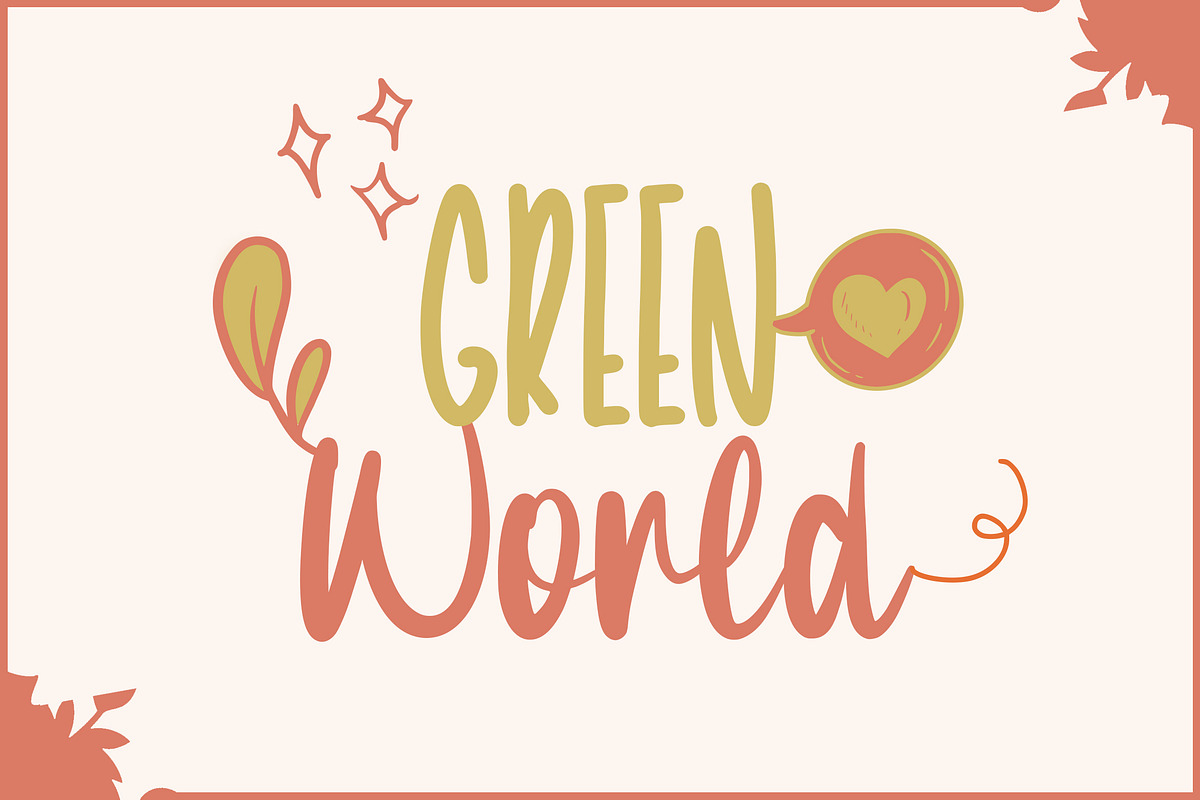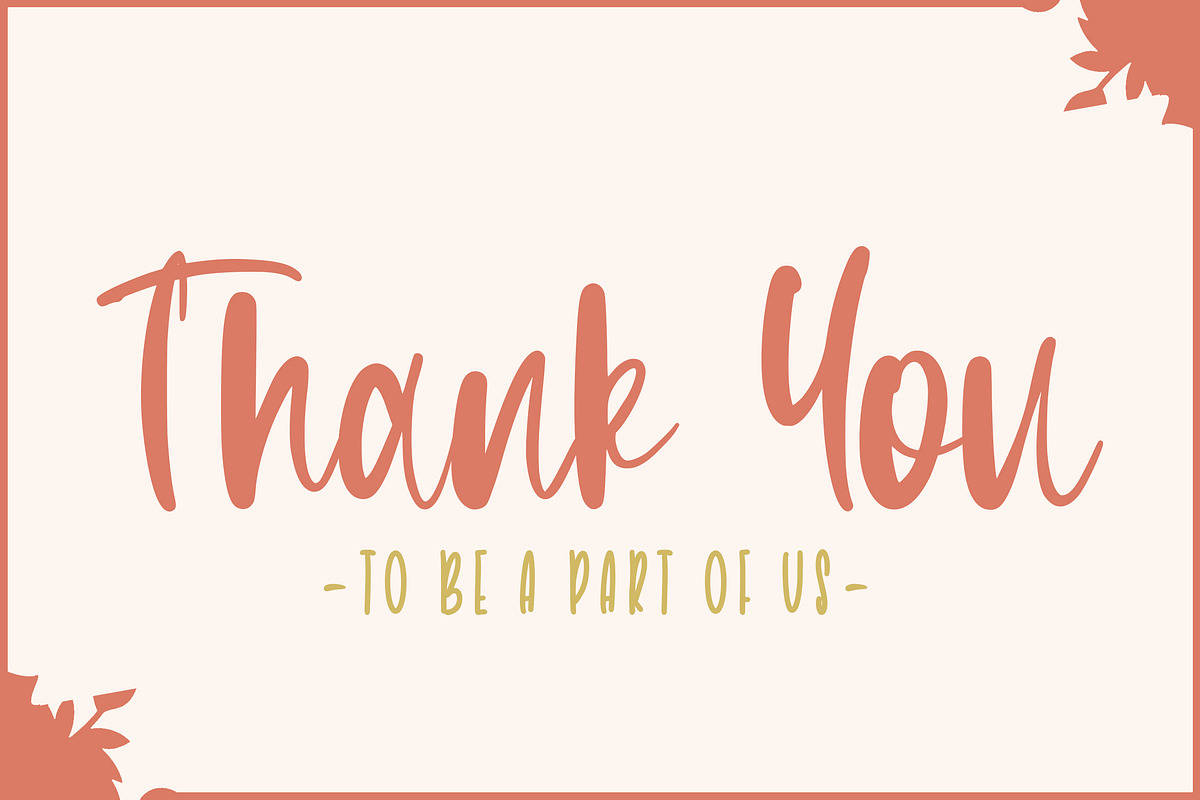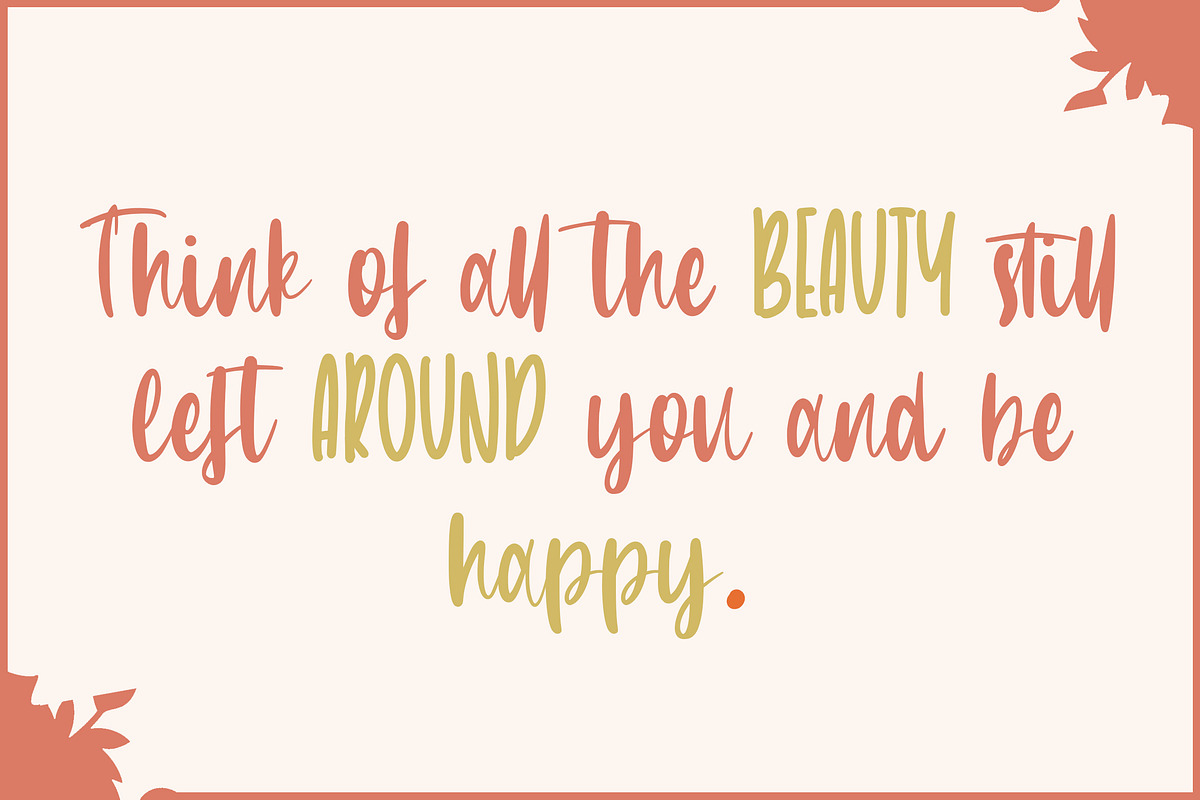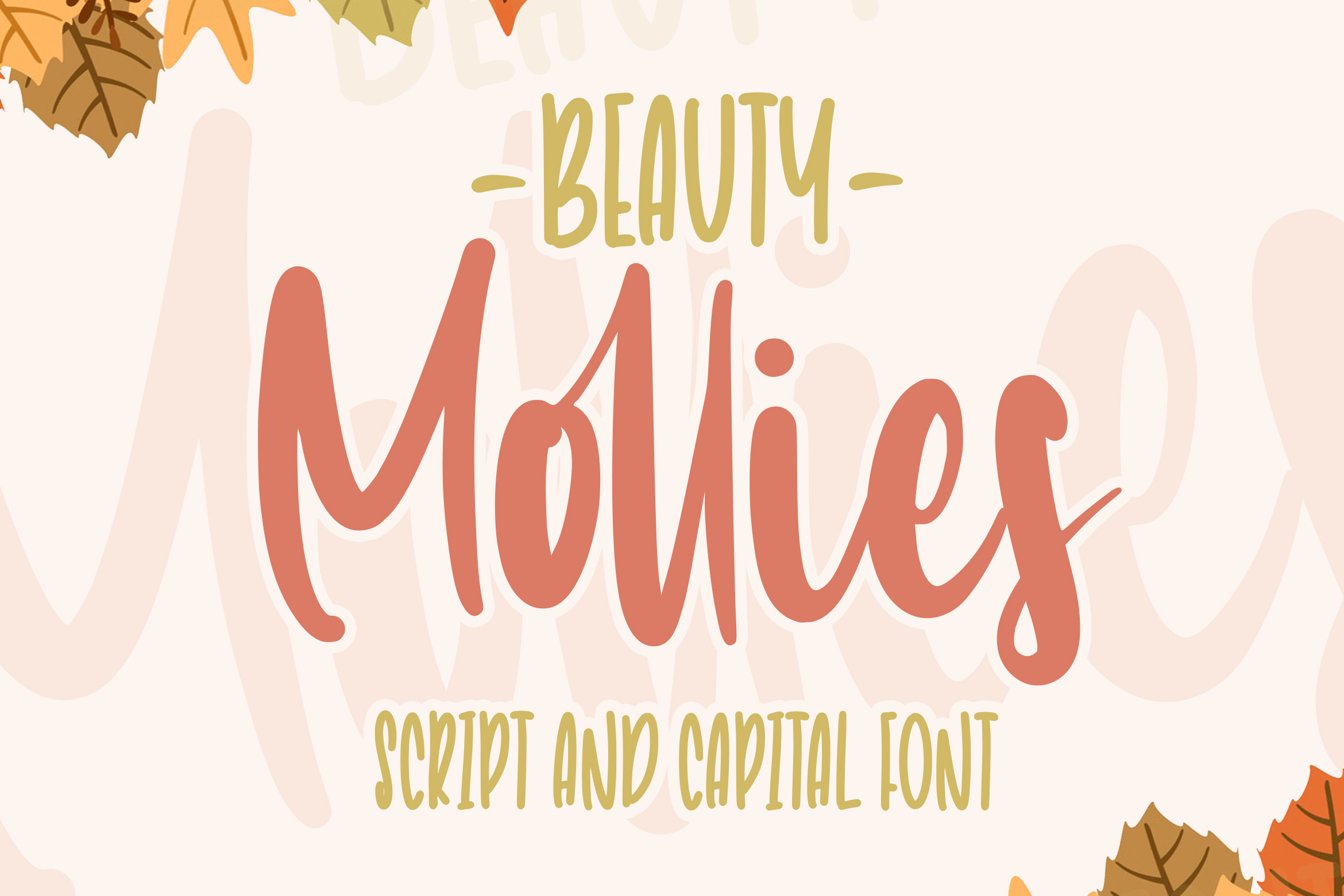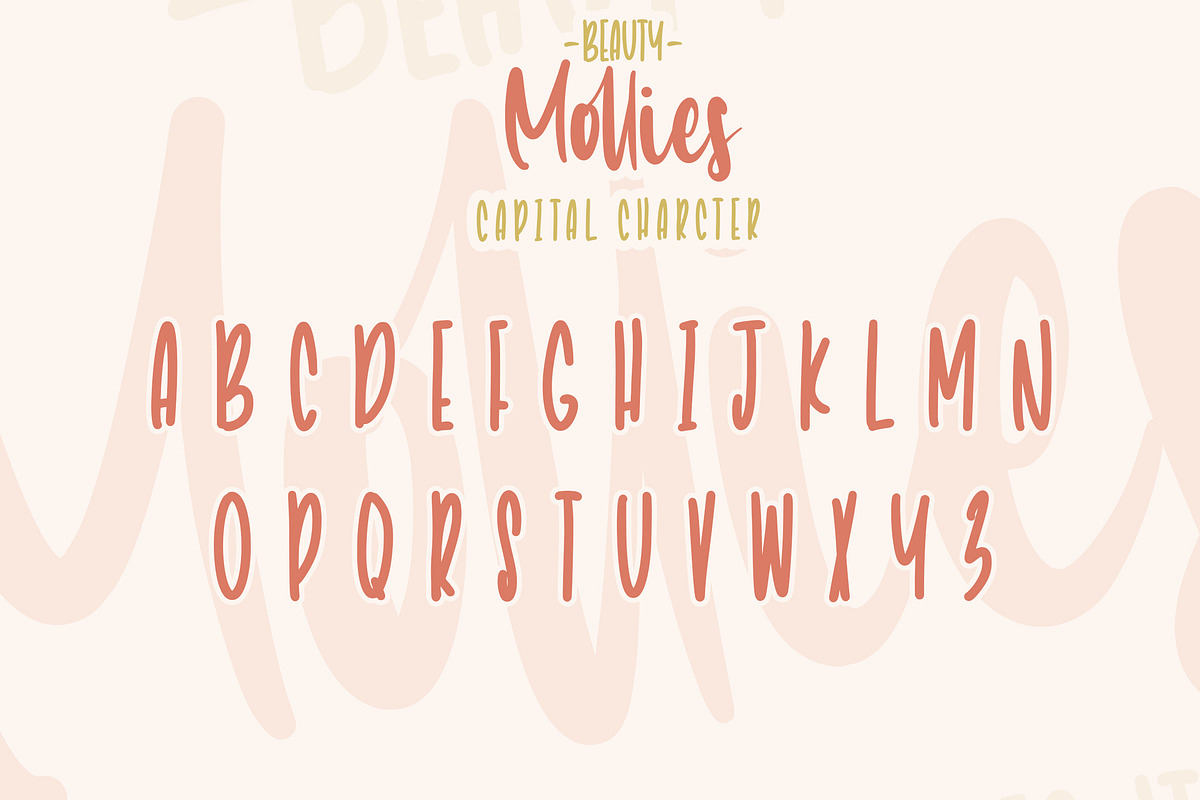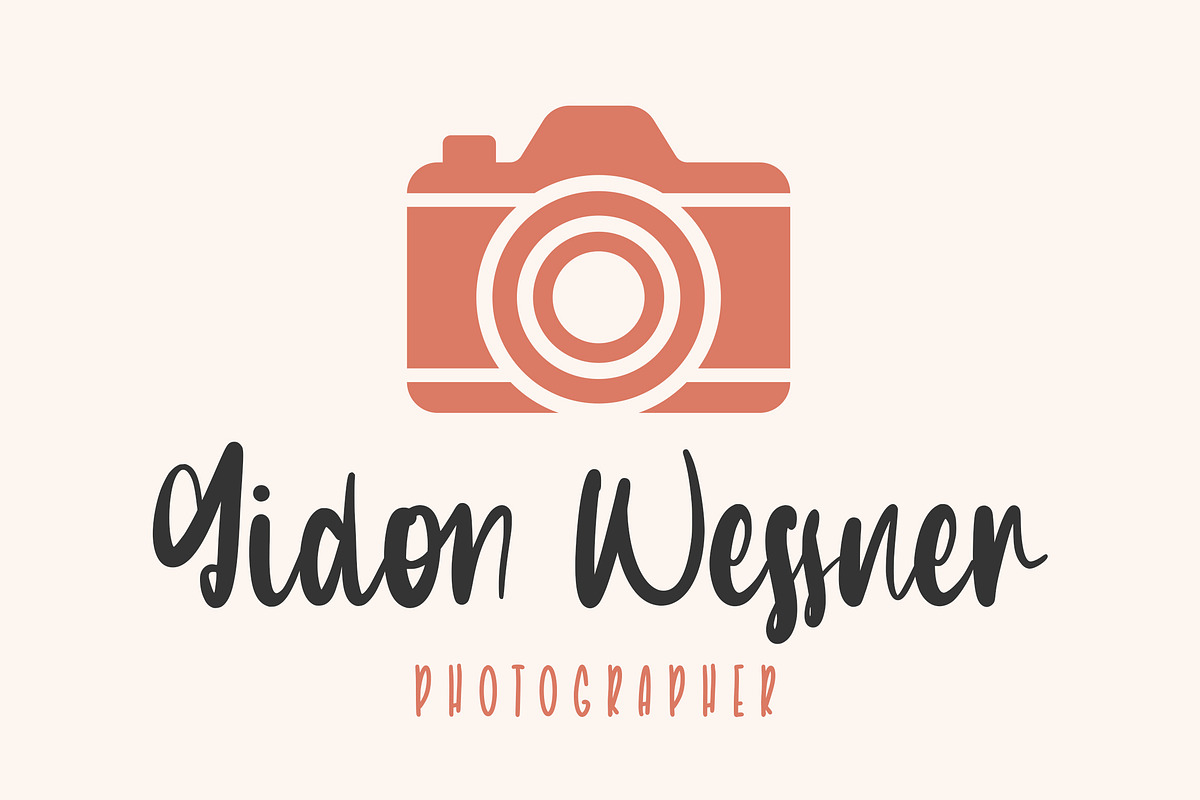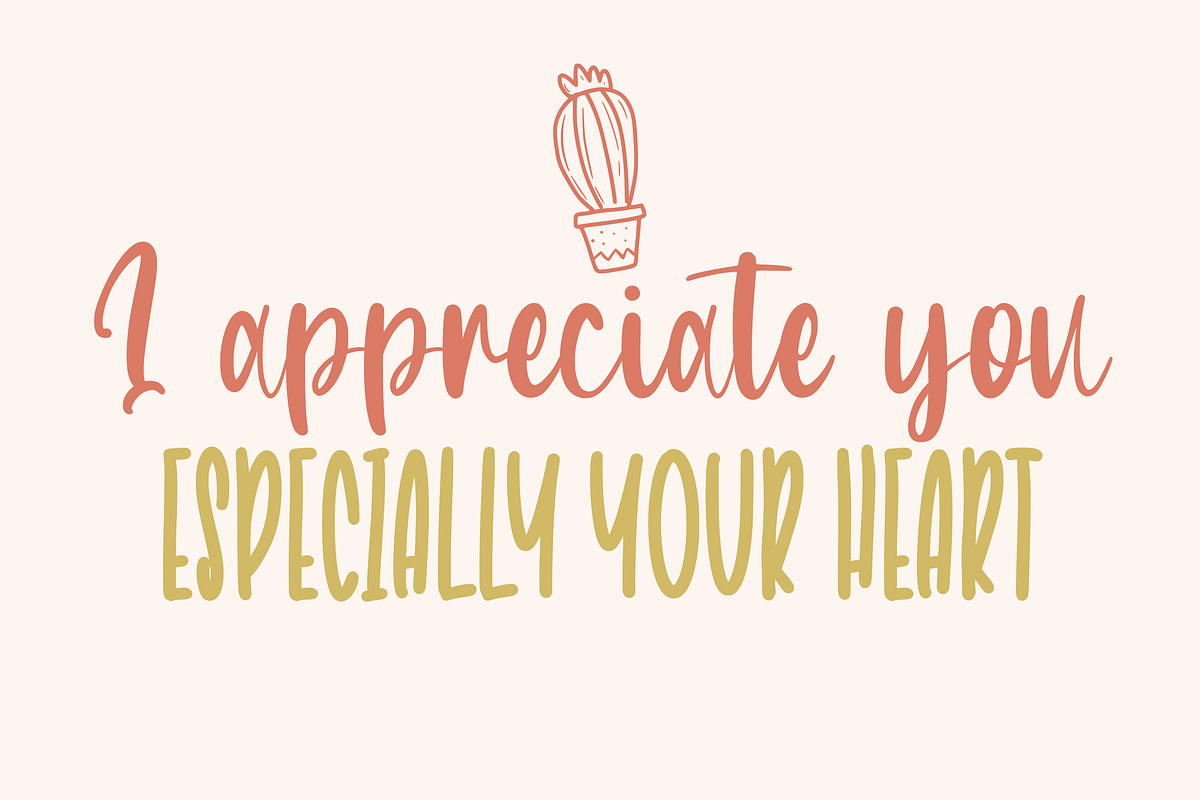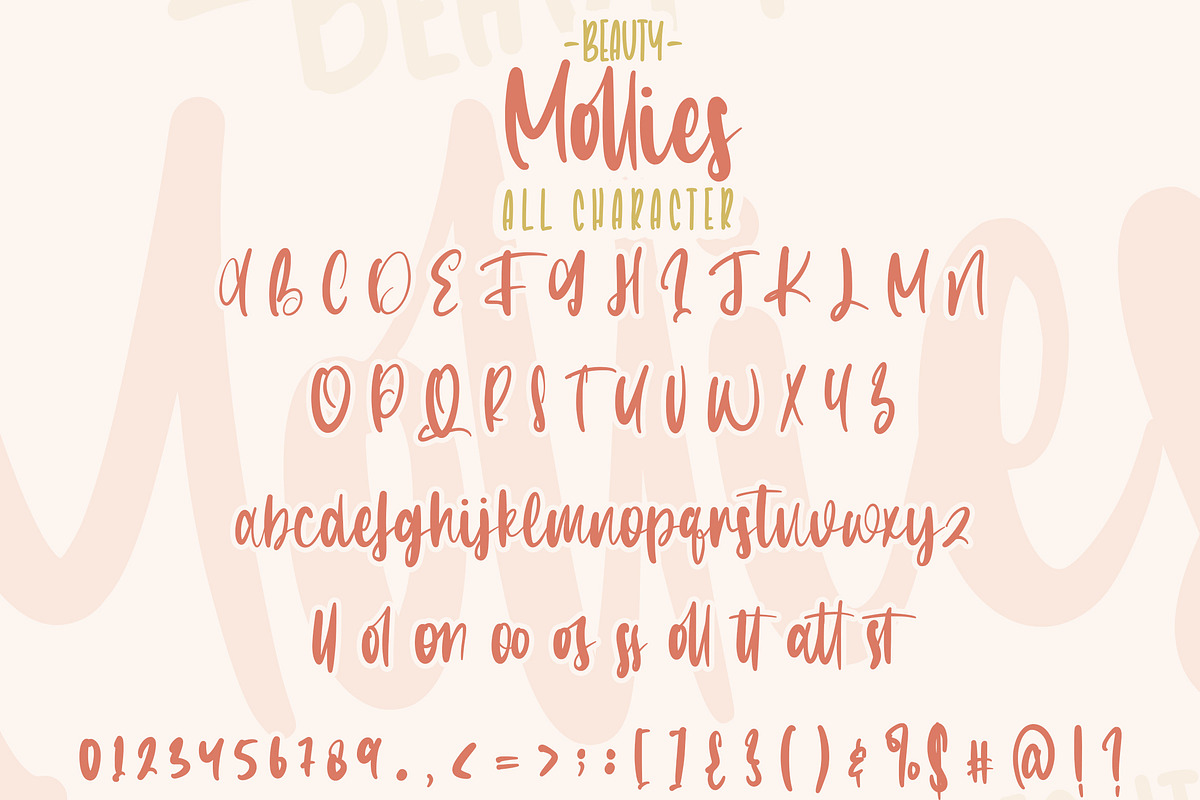
Beauty Mollies - Font Duo
Beauty Mollies is a 2 font combination that is suitable for all your design projects that aim to convey your message to your loved ones, with the font packages offered will definitely satisfy you
Beauty Mollies came with opentype features such stylist ligatures good for logotype, poster, badge, book cover, tshirt design, packaging and any more.